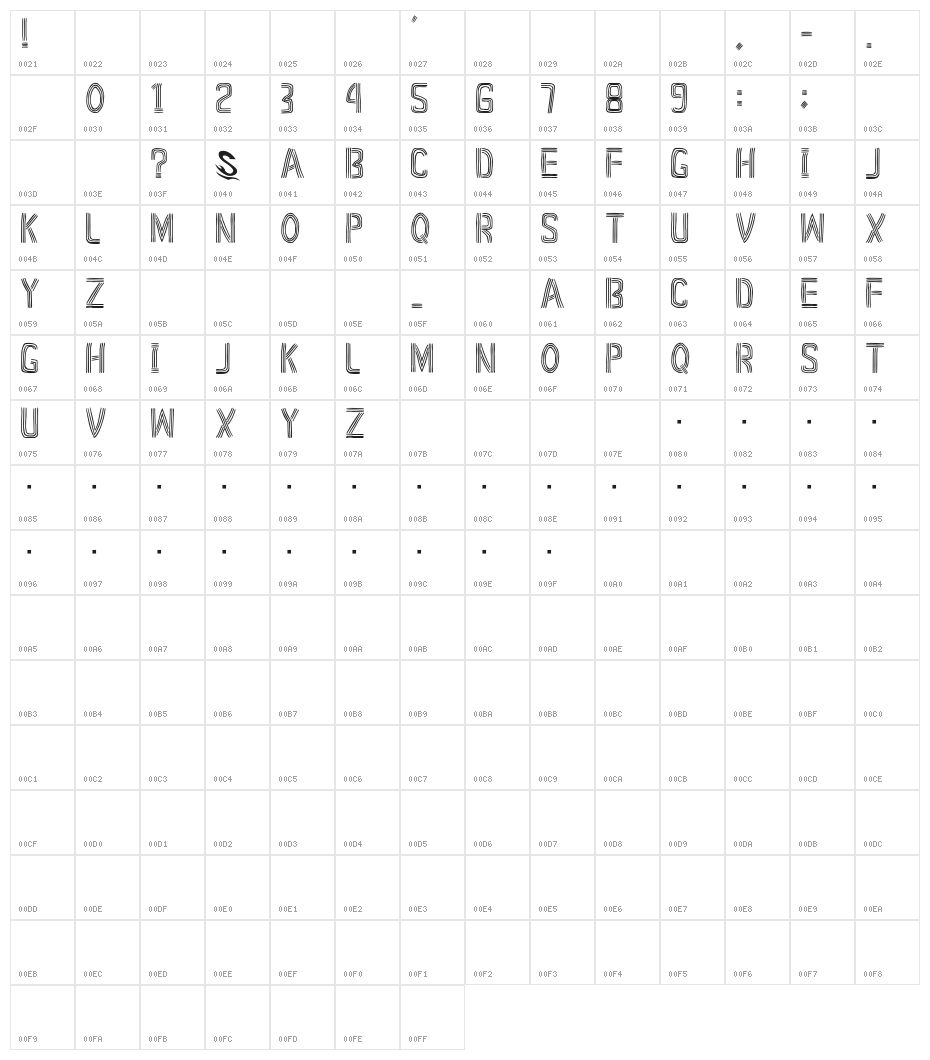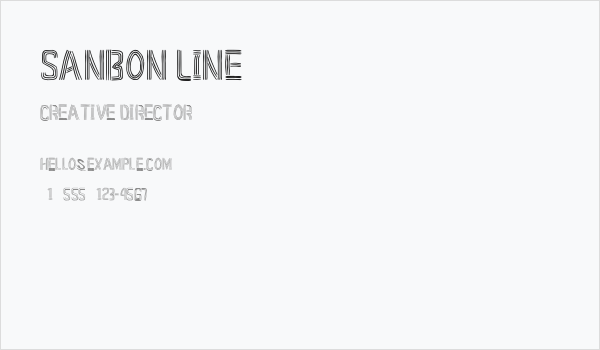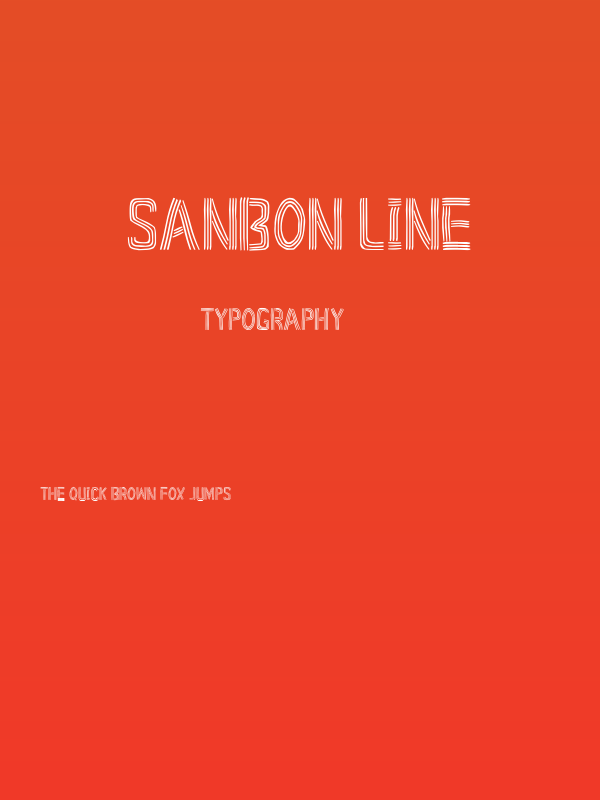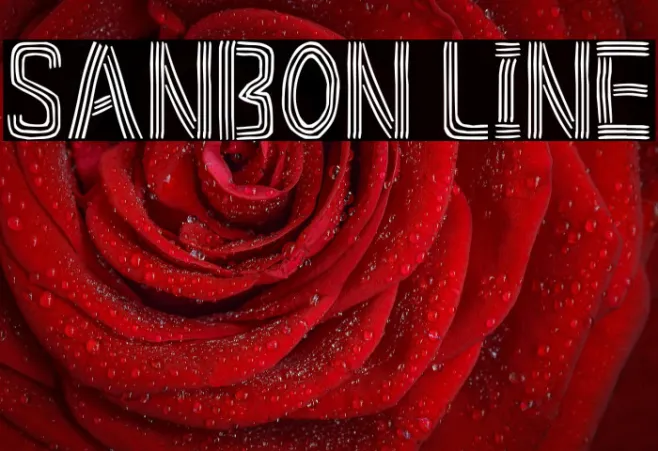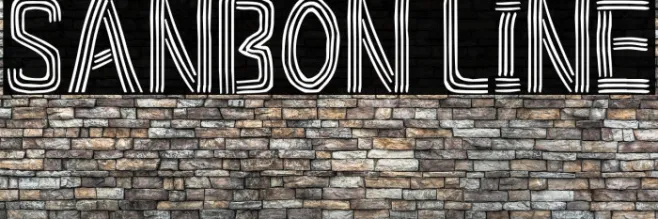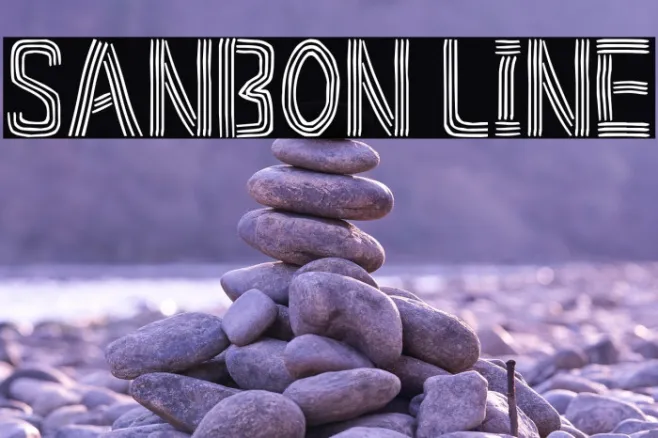
Sanbon Line Font
Sanbon Line Description
This font features a unique and striking design characterized by multiple parallel lines forming each character, creating a layered and dimensional effect. The uppercase and lowercase letters, along with numerals and special characters, maintain a consistent style that emphasizes geometric shapes and symmetry. The font's structure is bold and eye-catching, making it suitable for creative and artistic projects. Its distinct appearance is both modern and playful, offering a fresh take on traditional letterforms. The spacing between characters is uniform, ensuring readability while maintaining its decorative appeal.
| Proposed Projects | Ideal for posters, album covers, branding, and any project requiring a standout, artistic typeface. |